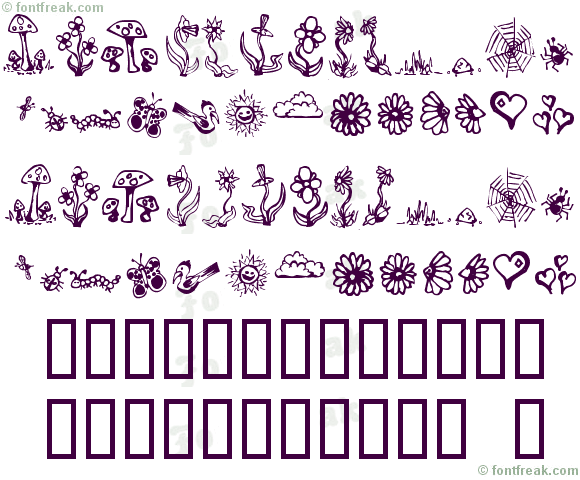
GardenDingbats
About Garden Dingbats
Garden Dingbats by Omega Font Labs is a delightful display font that falls into the decorative category, perfect for adding a playful touch to various design projects. This font features whimsical illustrations inspired by nature, showcasing a range of charming garden-themed icons. With its moderate stroke weight and clean lines, Garden Dingbats maintains an inviting aesthetic while remaining legible, making it a versatile choice for both print and digital applications.
The visual characteristics of Garden Dingbats are characterized by a harmonious balance of spacing and delightful decorative elements that evoke a sense of whimsy and creativity. Each dingbat is intricately designed, featuring motifs such as flowers, leaves, and garden tools, which are perfect for enhancing any garden-related project. The subtle contrasts in line thickness add depth to the icons, making them visually appealing without overwhelming the viewer.
This font is ideal for a variety of specific use cases, including wedding invitations that seek a touch of nature, movie posters for films with botanical themes, children's book illustrations, restaurant menus that emphasize fresh ingredients, and gardening blogs or websites looking to engage their audience visually. The target audience for Garden Dingbats includes graphic designers, small business owners in the floral or gardening industry, and content creators who wish to add an enchanting flair to their work.